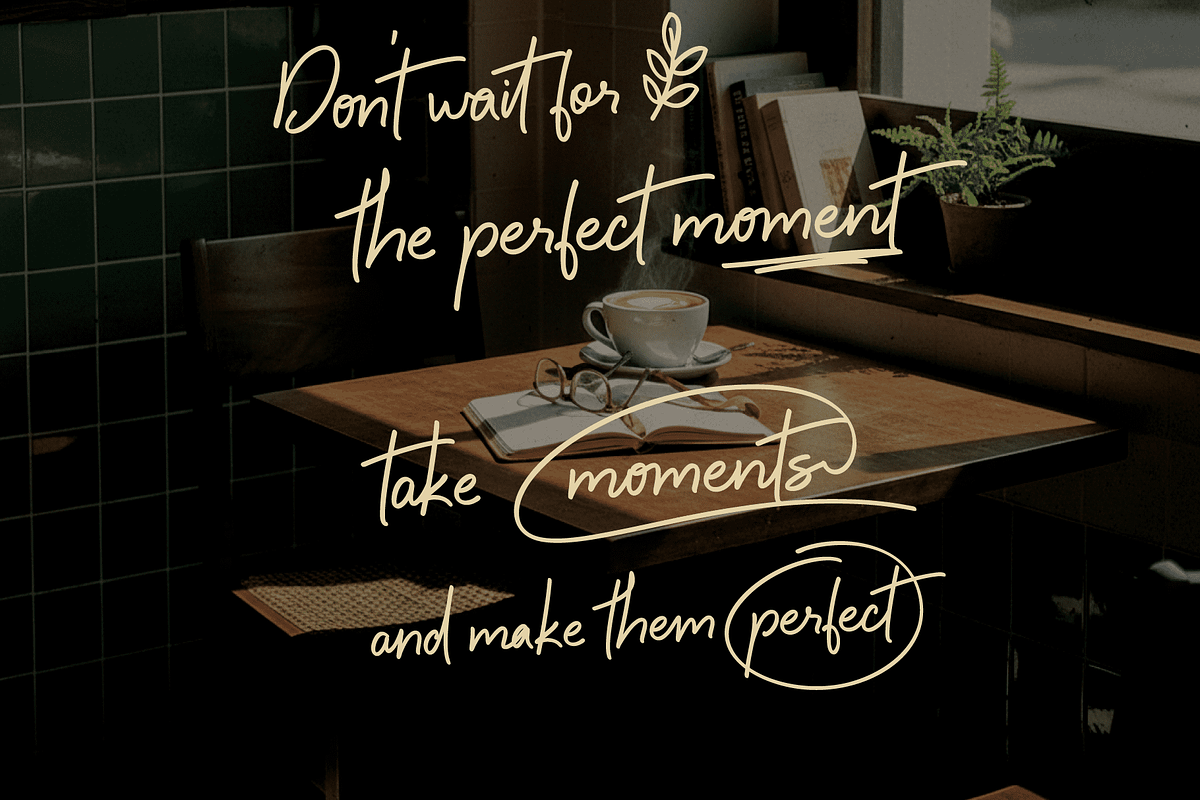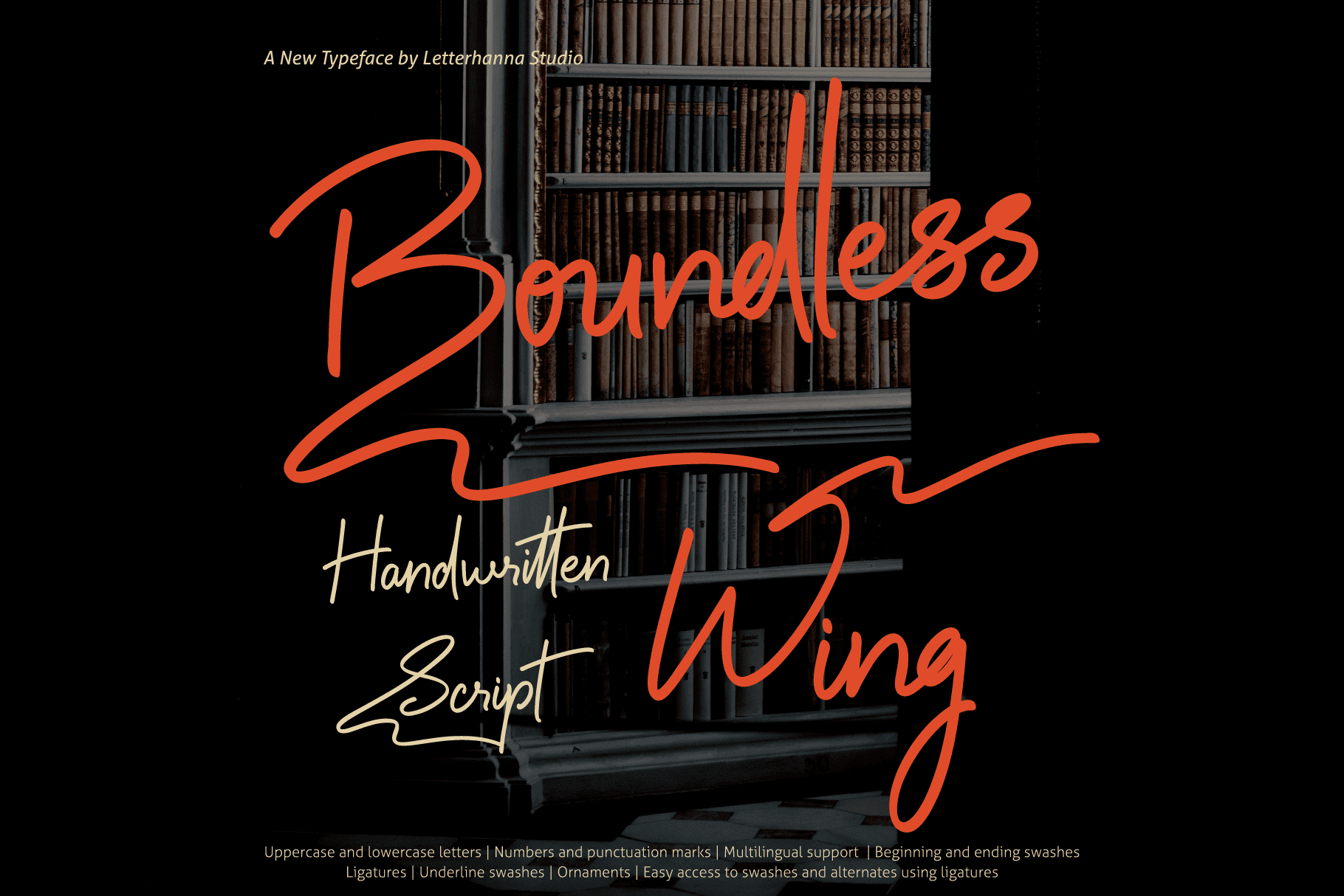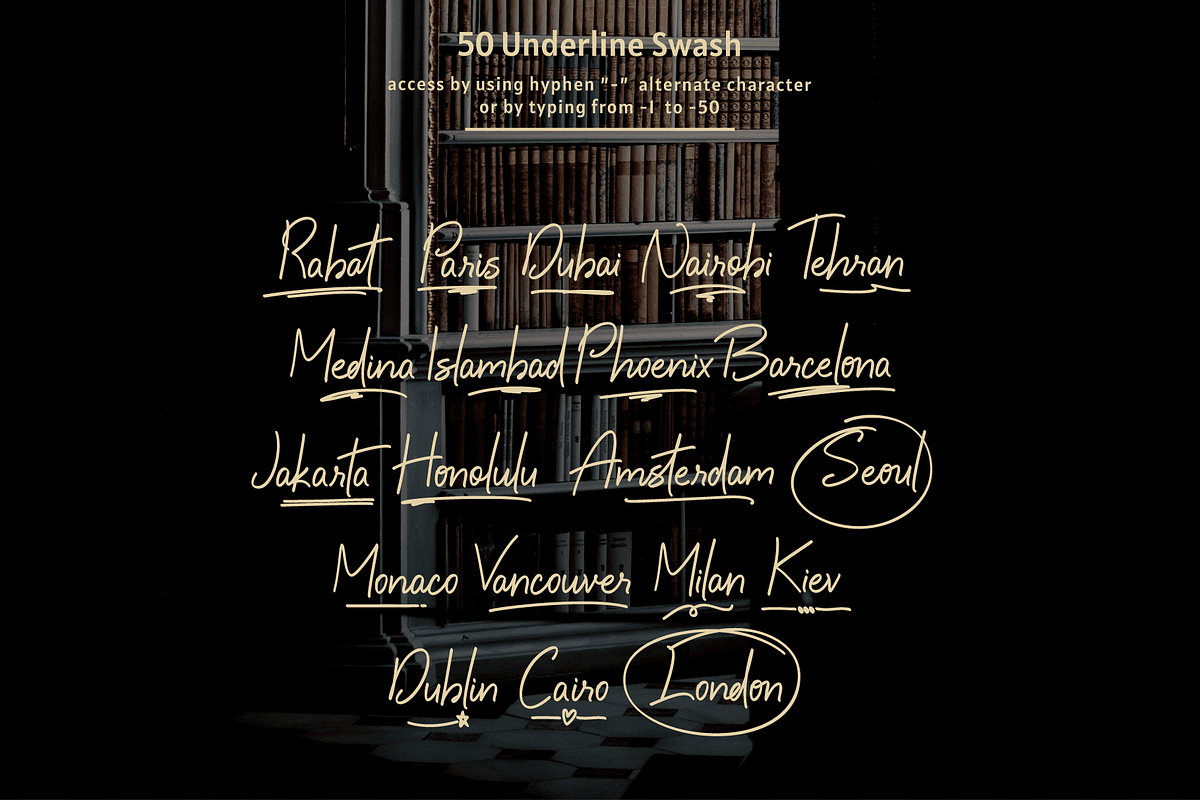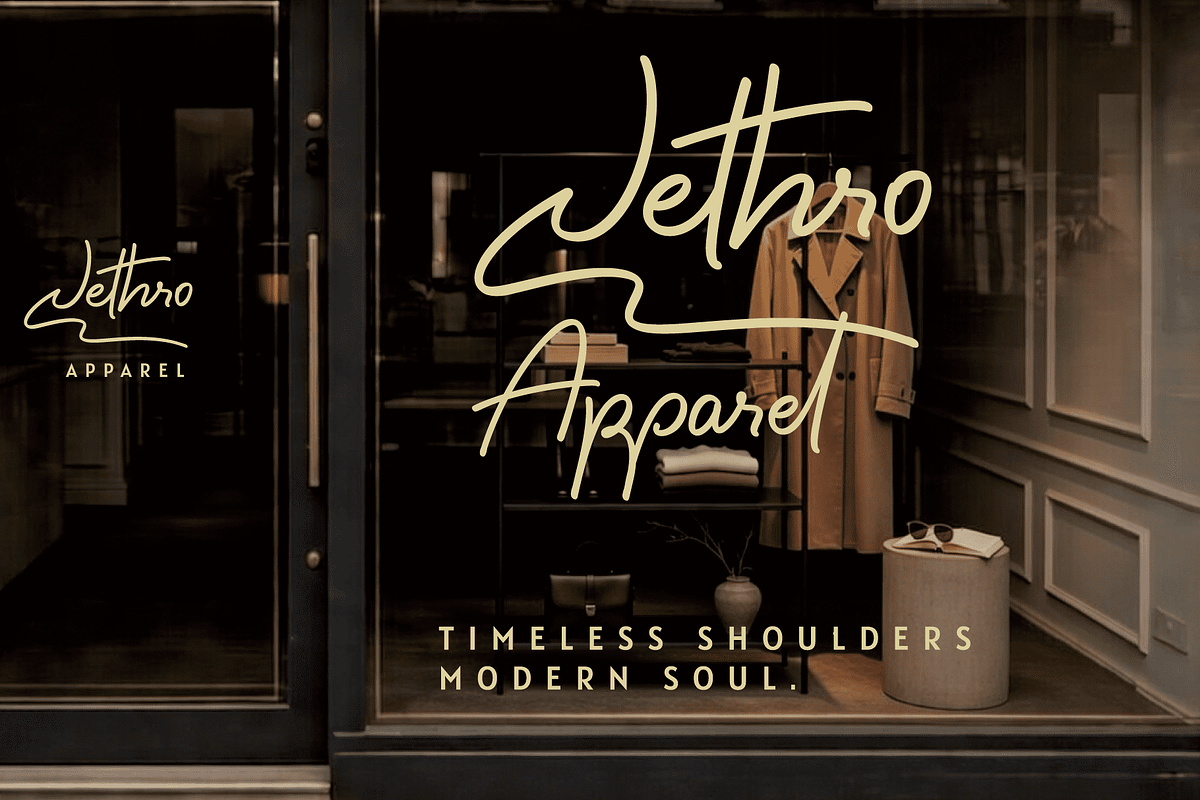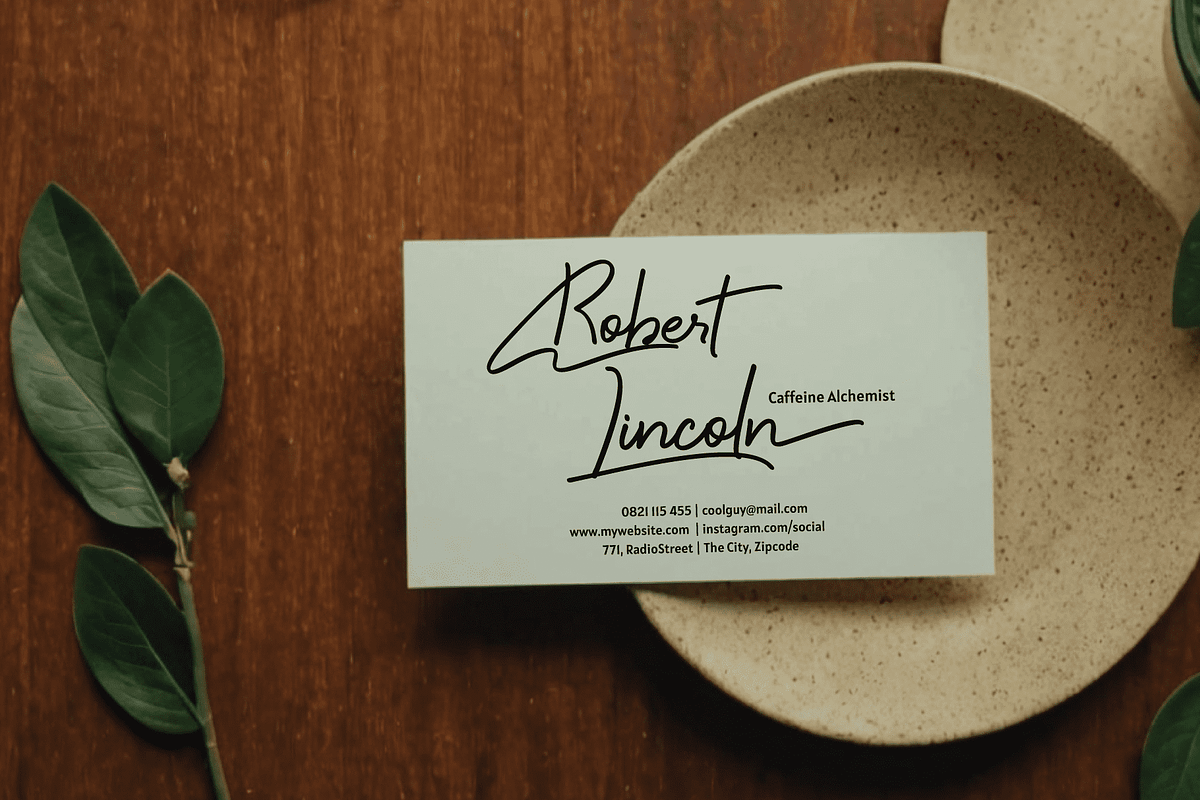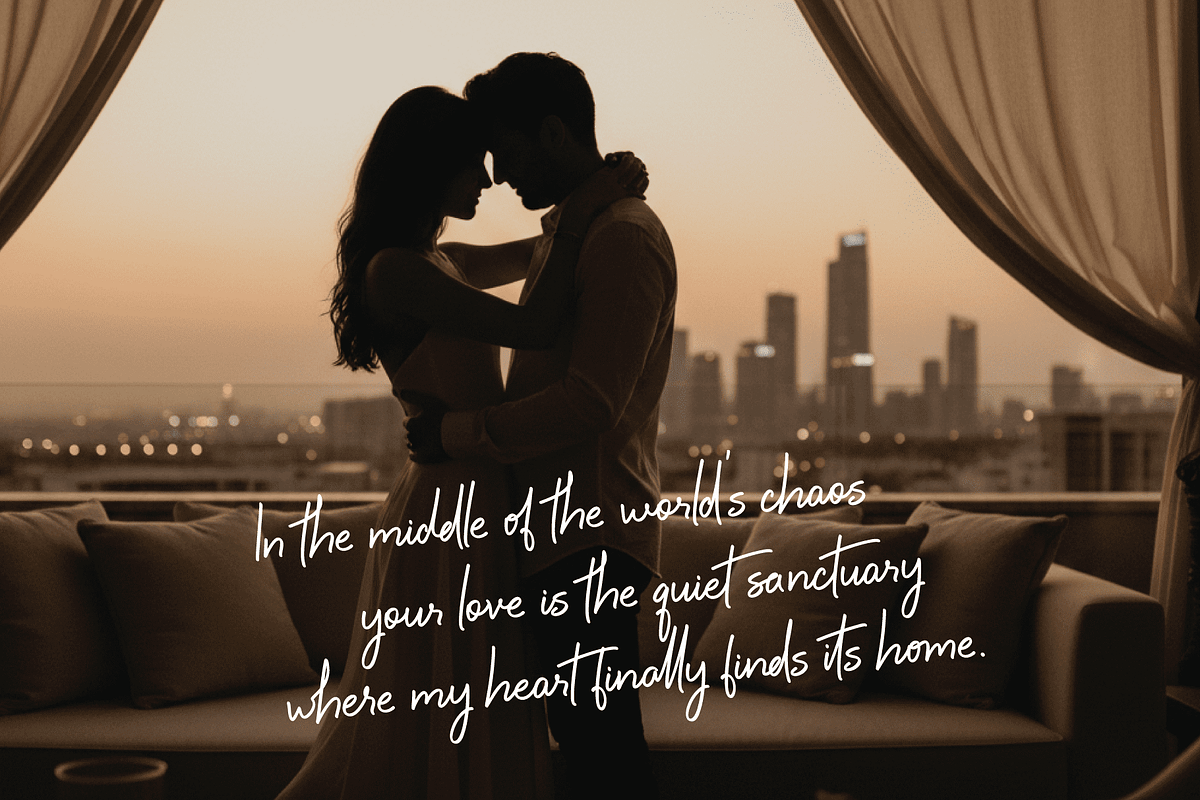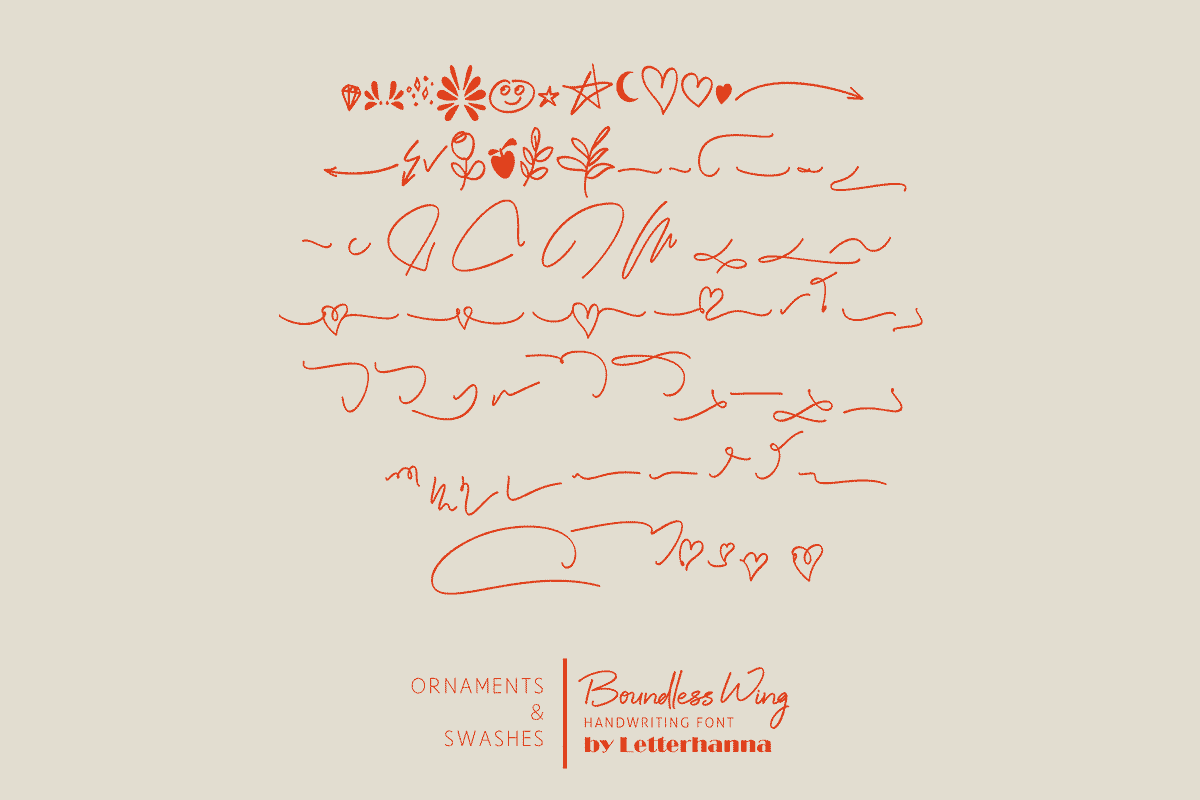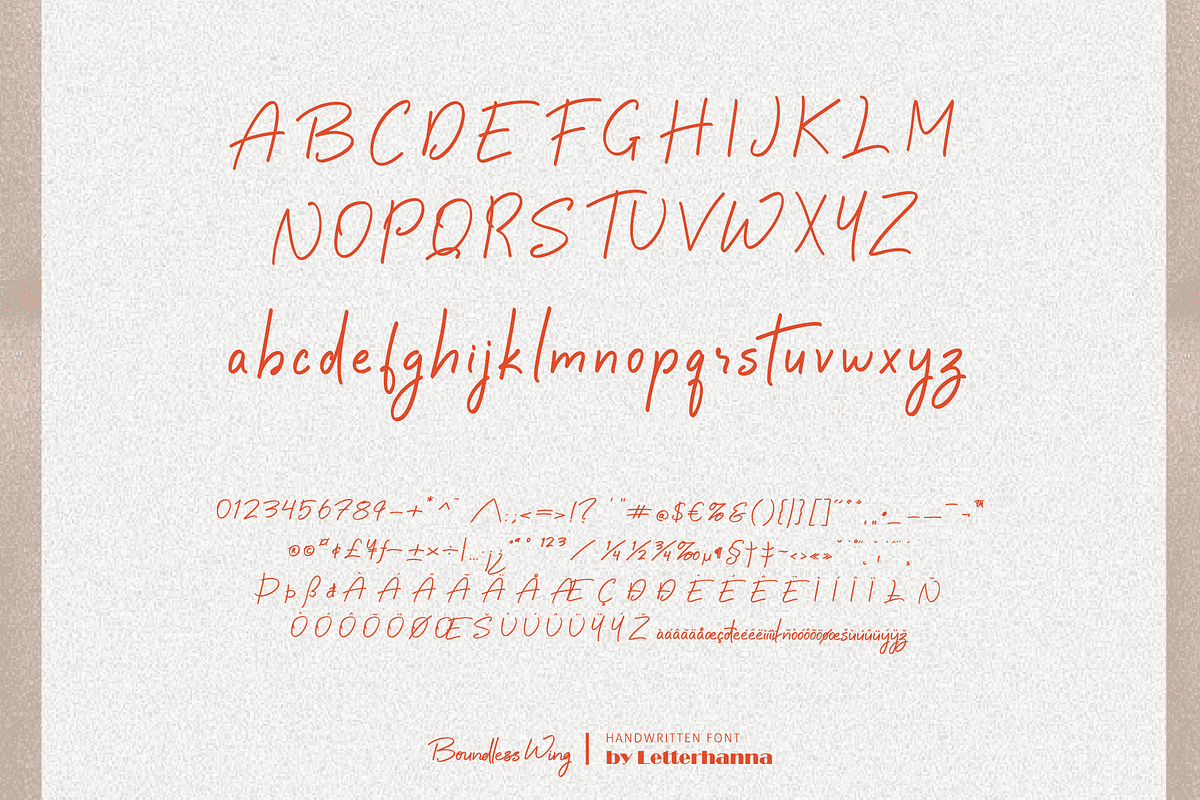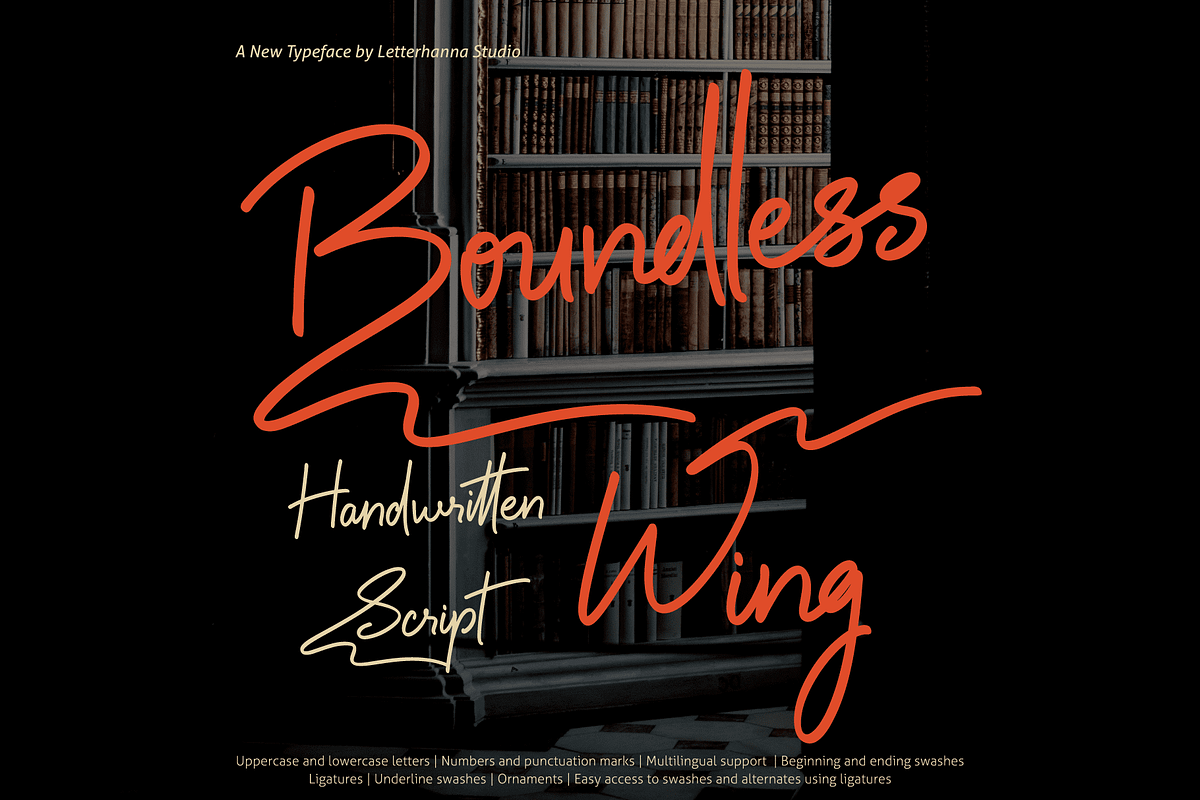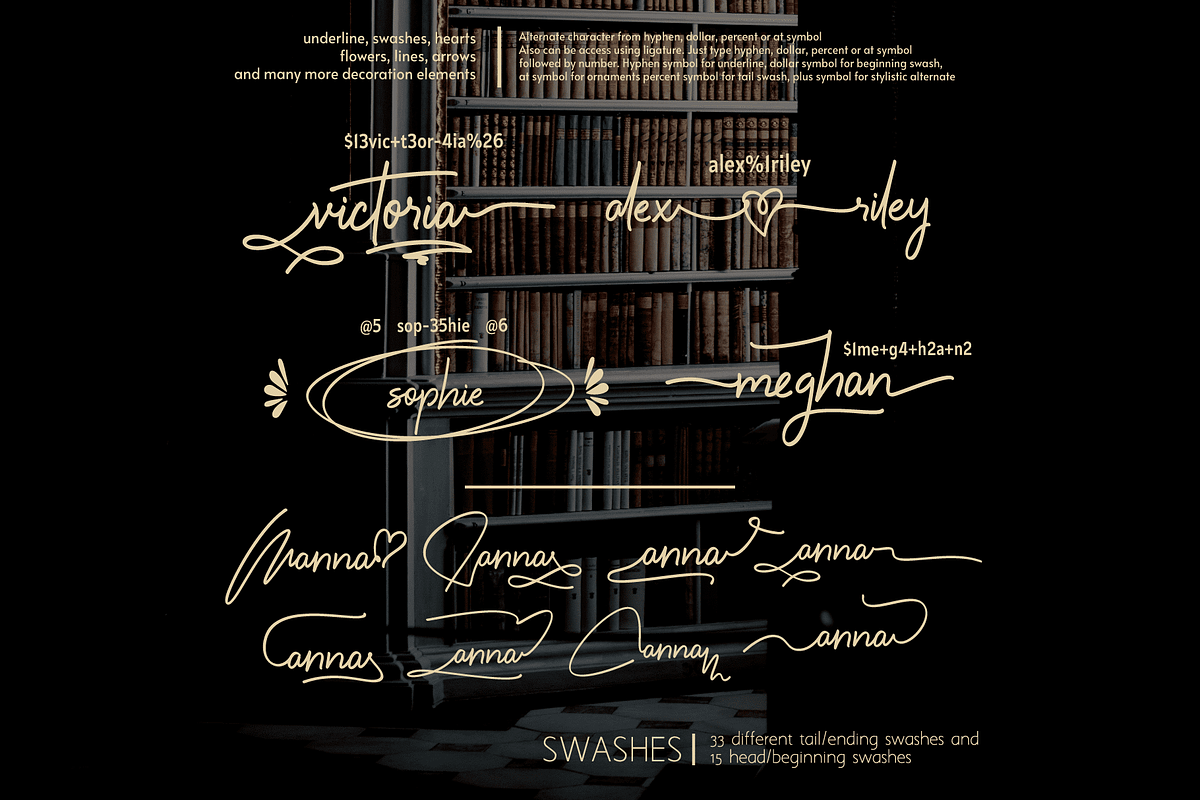
Boundless Wing Handwritten Font
In a world of typed perfection, true emotion hides in the imperfect stroke of a pen. Boundless Wing captures that raw, bold energy. Crafted by Letterhanna Studio, this handwritten script font features abundant ligatures for seamless connections, beginning/ending swashes that frame your text dramatically, and a library of stylistic alternates plus ornaments for endless customization. It’s designed to feel handwritten yet remain strikingly readable—ideal for bold headlines, social media graphics, or editorial designs. Break free from ordinary typography. Discover Boundless Wing now
Simple Ways to Unlock All the Extra Decorations
〰️ Underline swashes: type "-" followed by numbers 1–50 (example: -3, -22, -17) 🌿Intro flourish swashes: type dollar sign "💲" followed by numbers 1–15 💐Exit flourish swashes: type "%" followed by numbers 1–33 (example: %3, %15) 💎Decorative Ornaments: type "at" or email symbol followed by numbers 1–21
Font features:
🔤 Full uppercase & lowercase 🔢 Numbers and punctuation 🌍 Multilingual support 🔗 50 ligatures 🌿 Intro & exit flourishes swashes ➖ Underlines swashes ✨ Decorative elements ⚡ Fast decorative access via ligatures